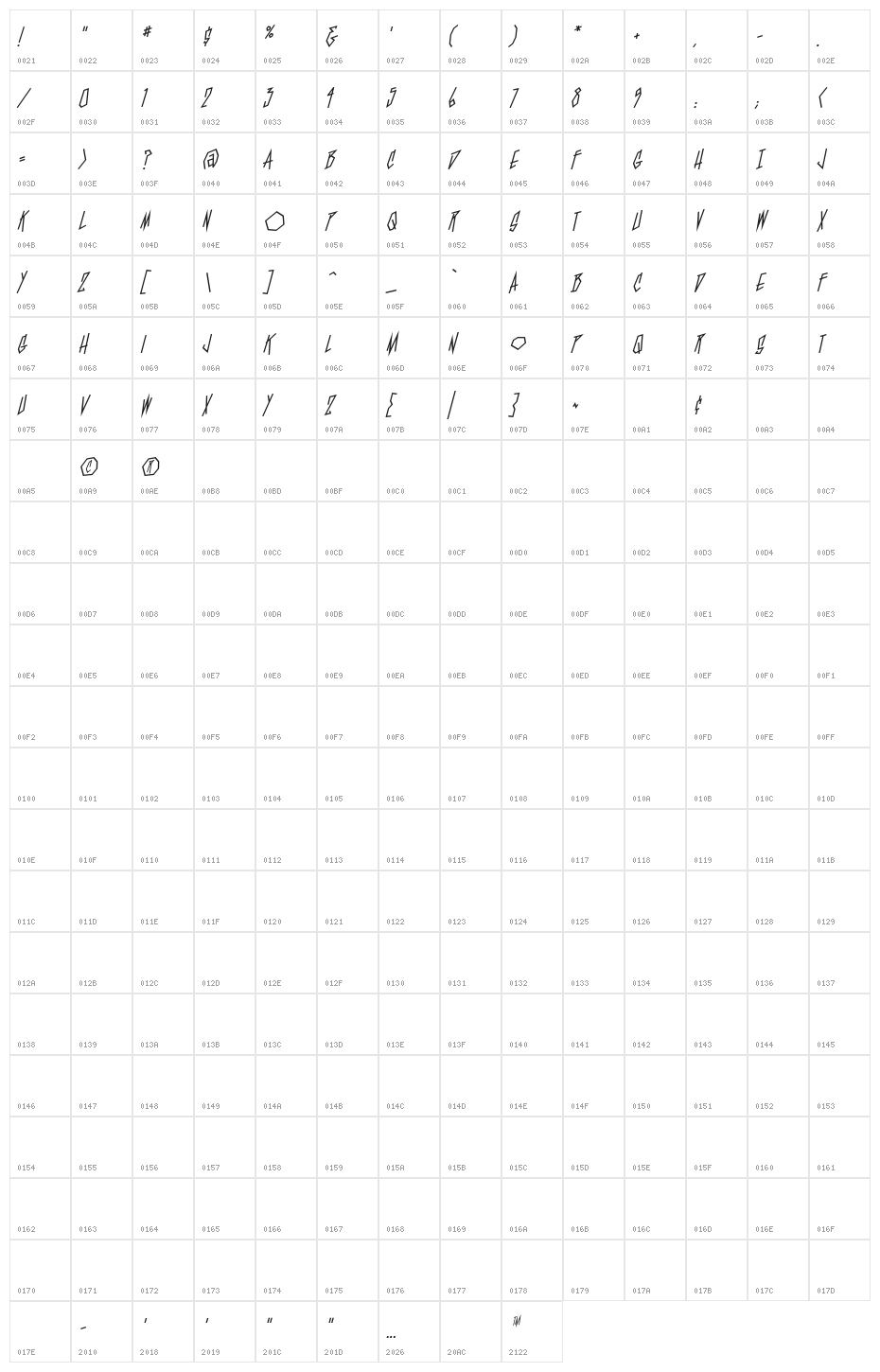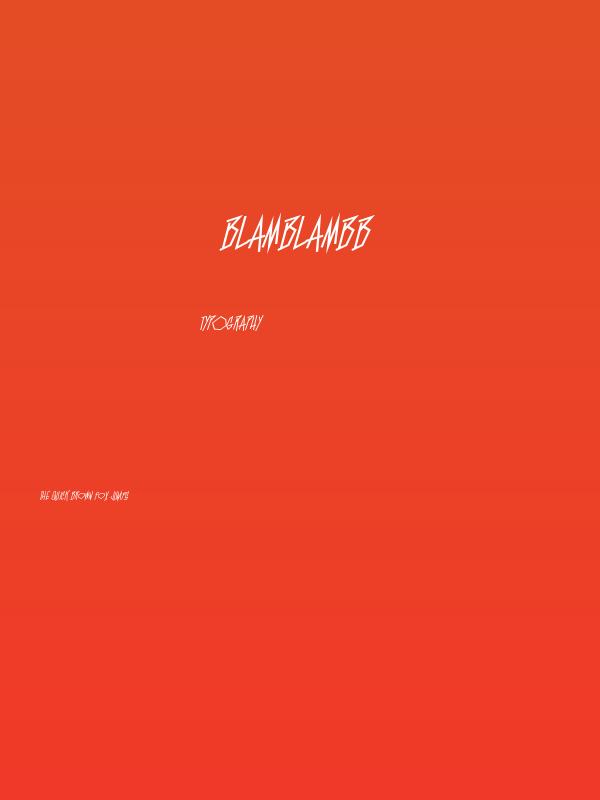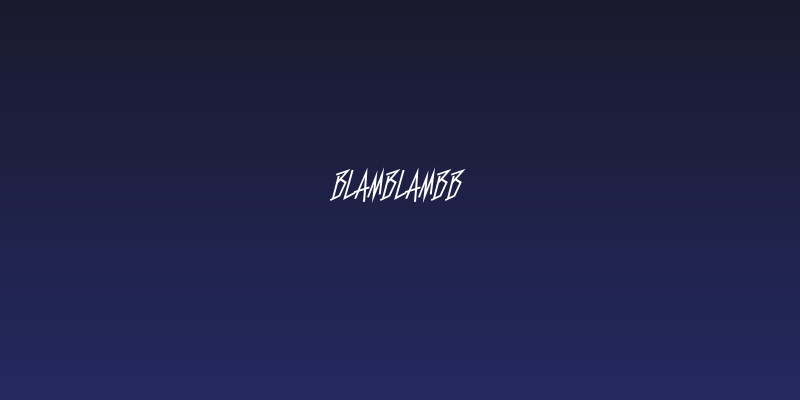
BlamBlamBB Font
BlamBlamBB Description
This font features a dynamic and edgy design with sharp, angular lines that create a sense of movement and energy. The characters are slightly slanted, giving them a forward-leaning appearance, which adds to the overall sense of speed and urgency. The uppercase and lowercase letters maintain a consistent style, with exaggerated points and a bold presence. Numbers and special characters follow the same design principles, ensuring a cohesive look across all elements. This font is ideal for projects that require a bold, impactful statement.
| Proposed Projects | Ideal for posters, album covers, video game titles, and any project needing a bold, energetic typeface. |